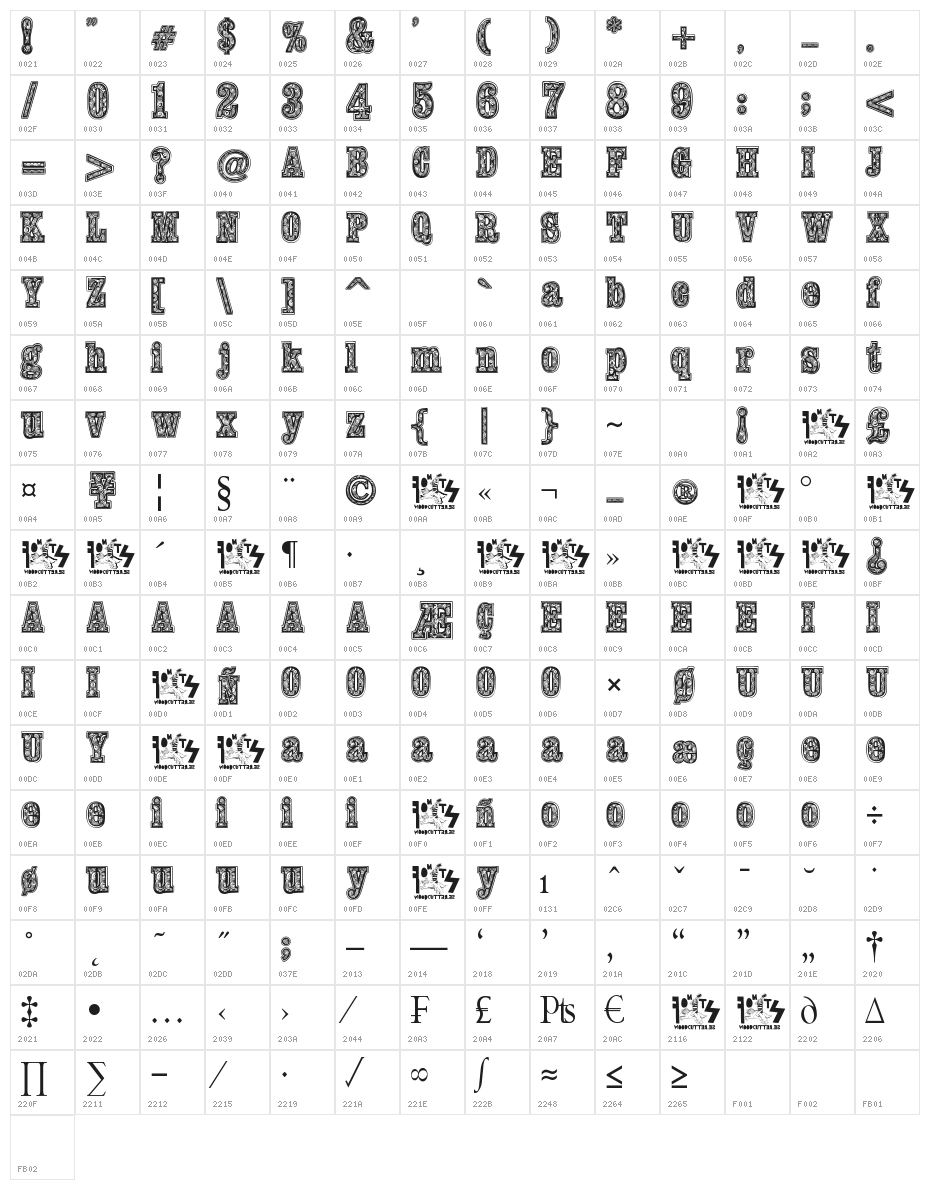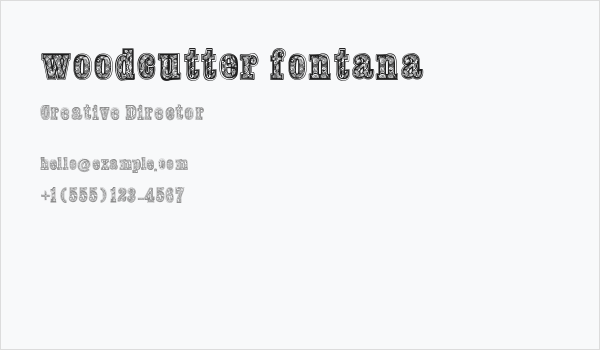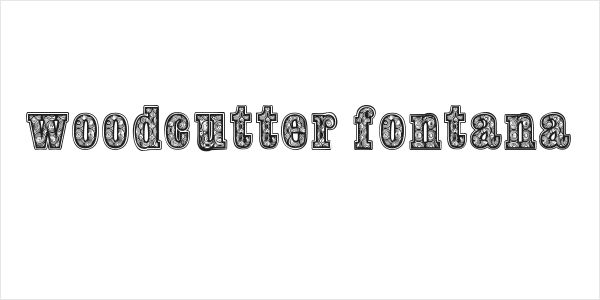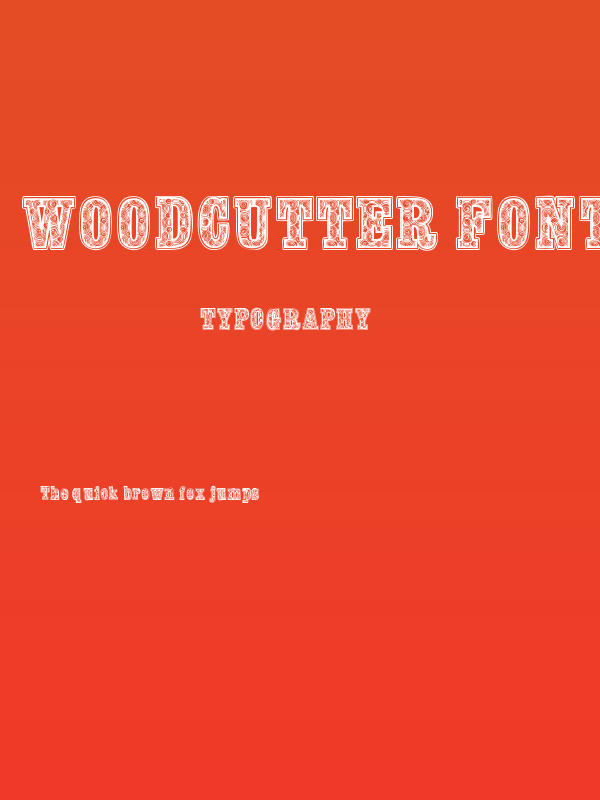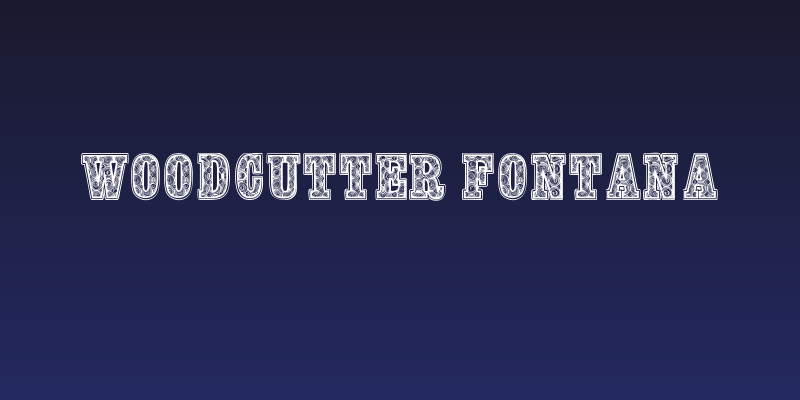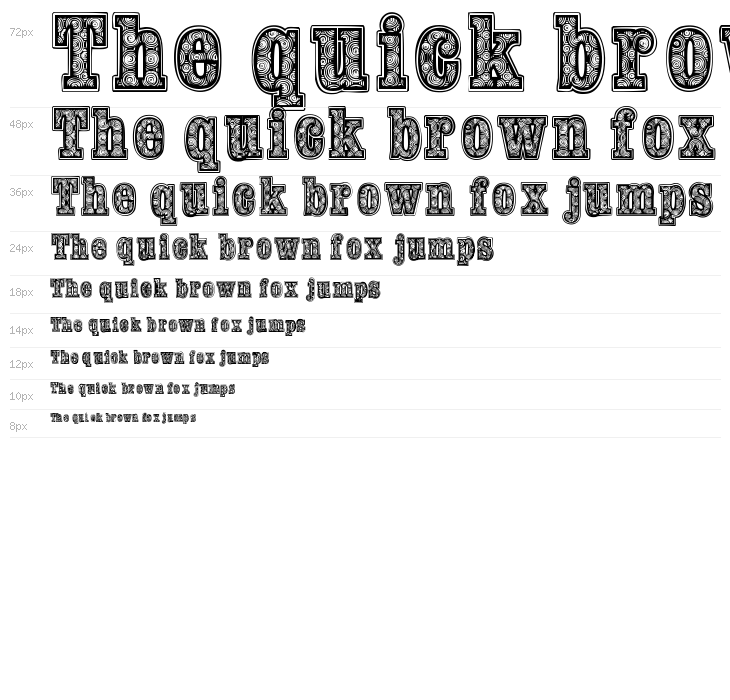
woodcutter fontana Font
woodcutter fontana Description
This font is a decorative display typeface characterized by its intricate, ornamental patterns within each letterform. The design features bold, blocky characters with elaborate swirls and curls that fill the interior space, creating a sense of depth and texture. The uppercase and lowercase letters maintain a consistent style, with the uppercase being slightly more pronounced. Numbers and special characters follow the same ornate pattern, ensuring a cohesive look across all glyphs. The font's unique style makes it stand out, ideal for projects that require a touch of elegance and creativity.
Proposed ProjectsIdeal for poster designs, invitations, branding projects, and any creative work that requires a bold, decorative touch.